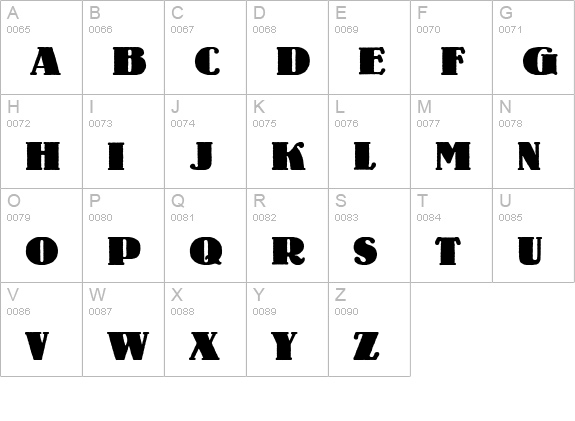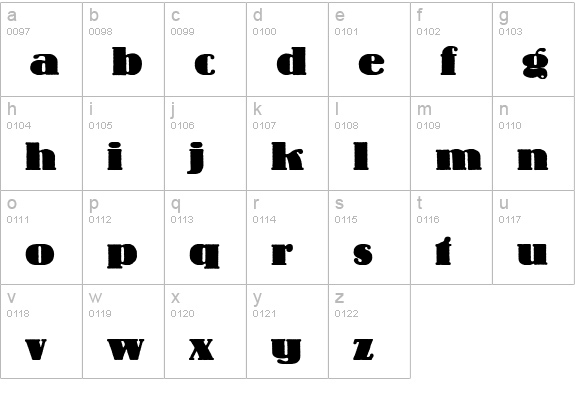
Lo-Type (R) Bold Font Details
Lo-Type (R) Bold is a strong, high-contrast variant in the Lo typeface family \xE2\x80\x94 well suited to headlines, attention-grabbing titles, and strong calls-to-action.
Lo-Type (R) Bold font is a stunning display typeface that exudes modernity and sophistication. With its bold and striking design, this font is perfect for creating eye-catching headlines, titles, and logos that demand attention. The sharp edges and clean lines of Lo-Type (R) Bold add a touch of elegance to any design project. What's even better is that Lo-Type (R) Bold font is available for free download at FontsMarket.com. This means you can easily access this stylish font and incorporate it into your creative works without breaking the bank. Don't miss out on the opportunity to enhance your designs with the sleek and impactful Lo-Type (R) Bold font today!